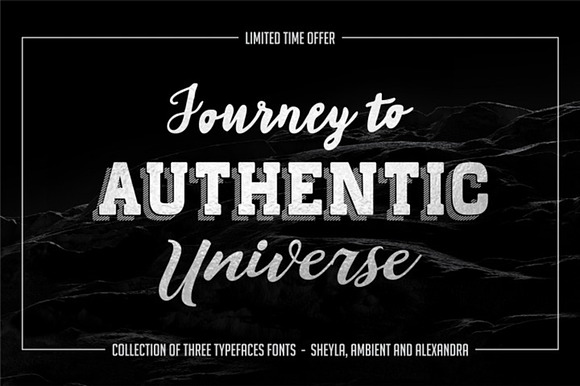
3in1 font Sheyla, Ambient, Alexandra
New collection of three typefaces fonts Sheyla, Ambient and Alexandra
Creatively beautiful constructed based on modern outline ideas from fashion industry and inspired by modern art this typeface is ideal for as indoor shops’, market’s advertisement like shop name as well as outdoor, service description design, menu in vintage style caf?, decoration party etc. Please refer to the list of possible uses we have created to help designers with inspiration and add your idea in comments section below. Your contribution is highly appreciated.
Why 3in1 font Sheyla, Ambient, Alexandra is worth a look
3in1 font Sheyla, Ambient, Alexandra by Vintage Font Lab fits naturally into Branding, posters, packaging, typography.